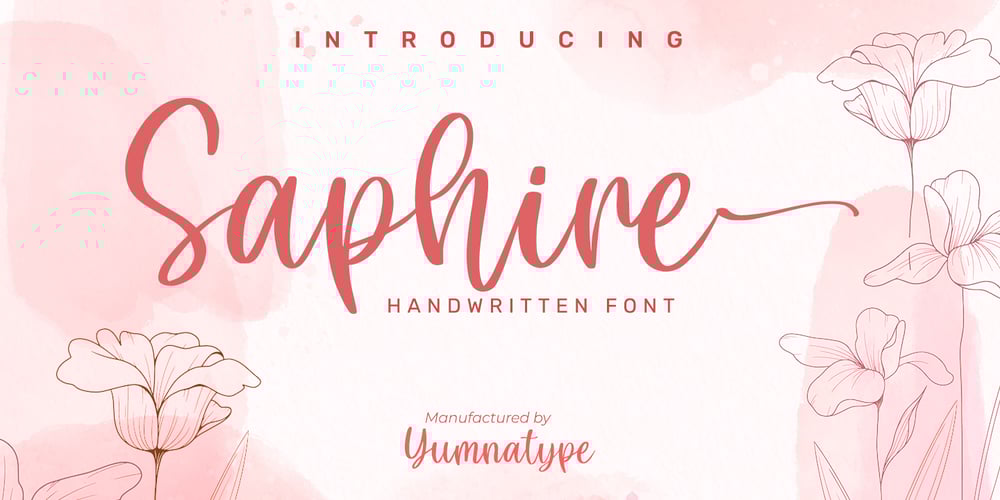
Saphire Font Family was designed by Donis Miftahudin and published by Yumna Type. Saphire contains 1 styles and family package options. Saphire is a elegant handwritten font with a natural and unique design will make your project more beautiful. The font is suitable for your branding project, printing, logos dan wedding.Included:Saphire (OTF)Features: Standard Ligatures Stylistic Sets Multilingual Support PUA encoded Numeral and Punctuation by Yumnatype